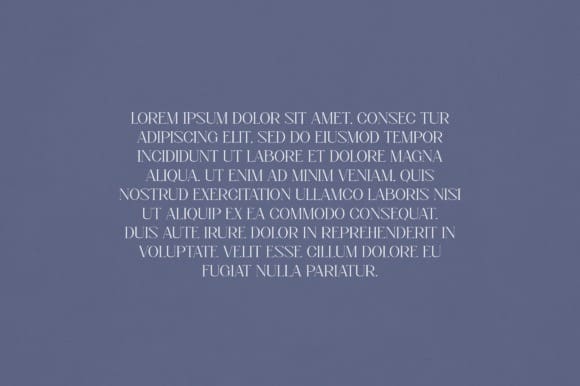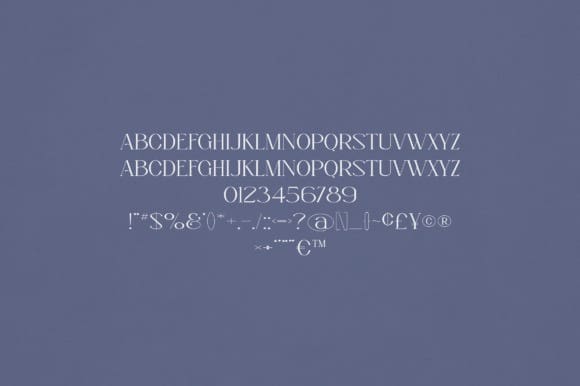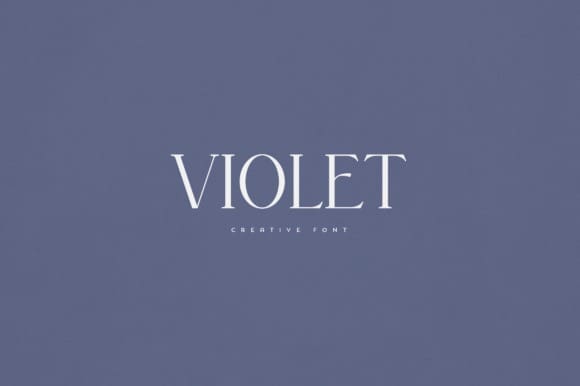
Violet Font
Violet Font is an elegant and versatile serif font that will make your typography truly unique! It will enchant every logo, branding, headline, or plain text!